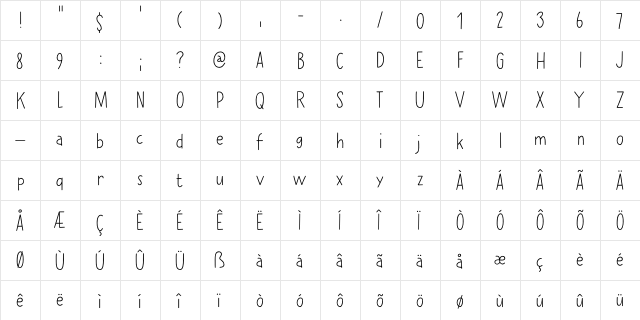
Erstwhile Line DEMO Regular
| Foundry | David Kerkhoff |
| Designer | David Kerkhoff |
Design Context for Erstwhile Line DEMO Typeface
Erstwhile Line DEMO offers clean, dependable letterforms without strong stylistic allegiance, making it a practical choice for designers who need flexibility.